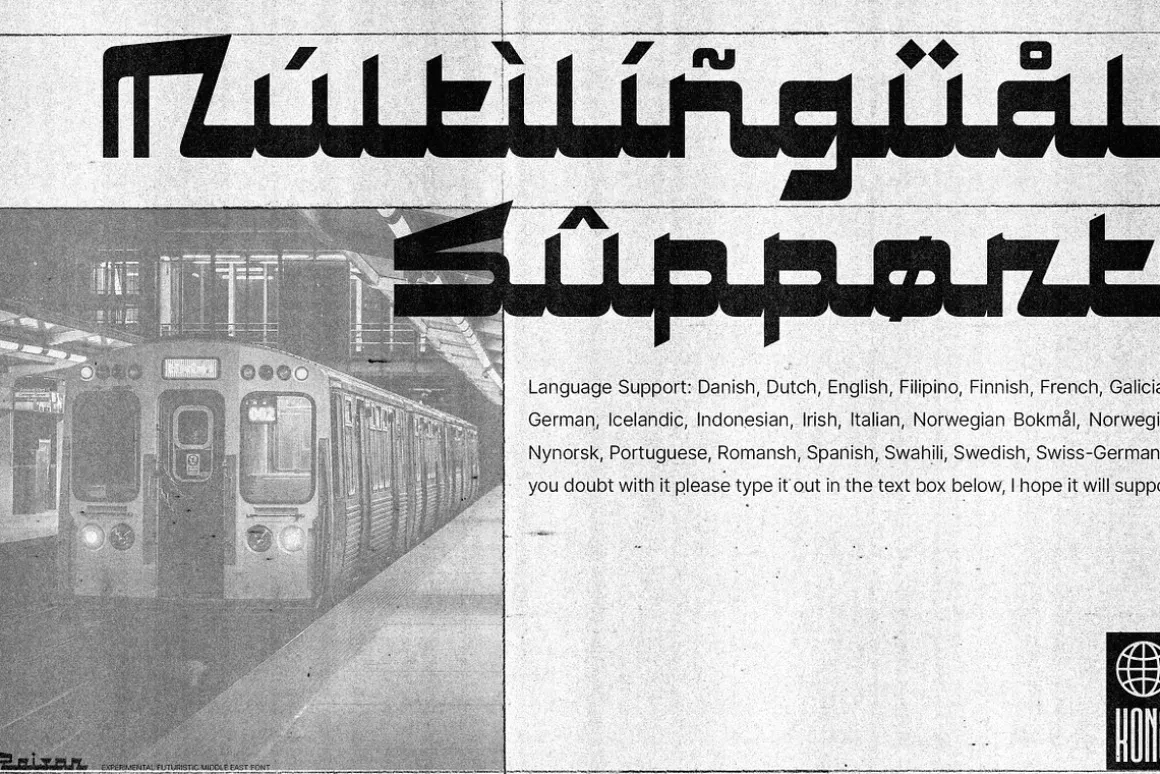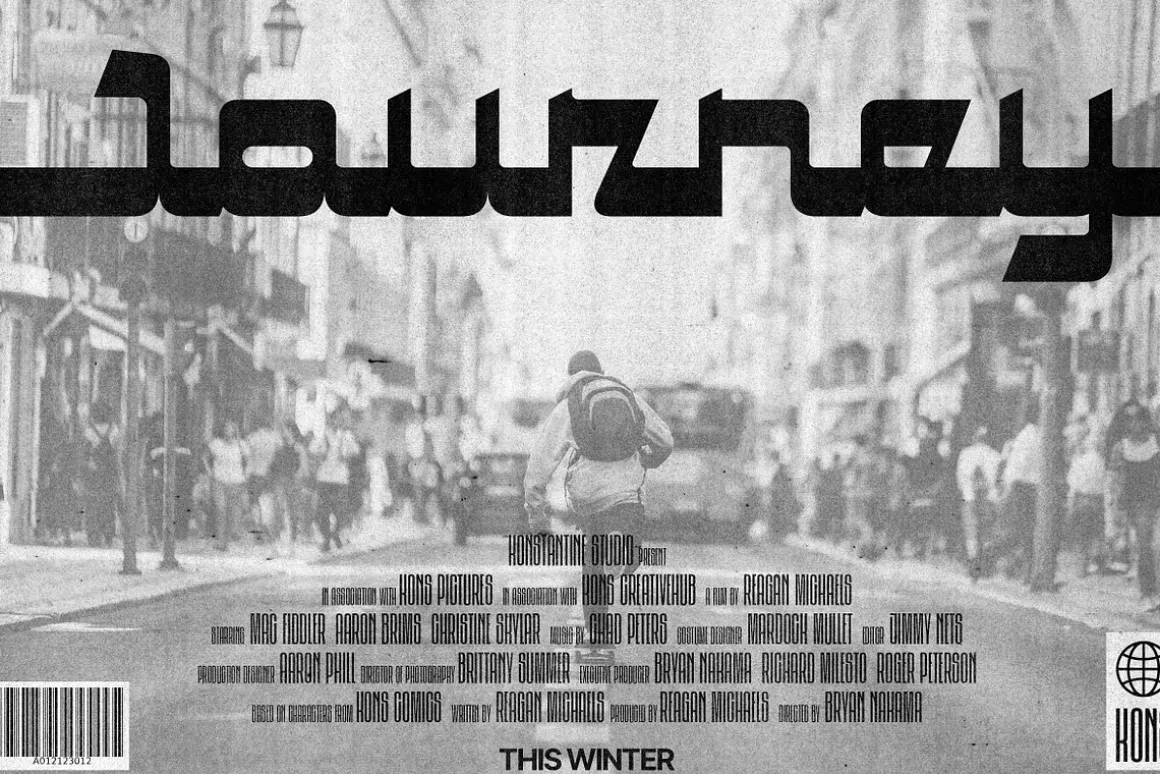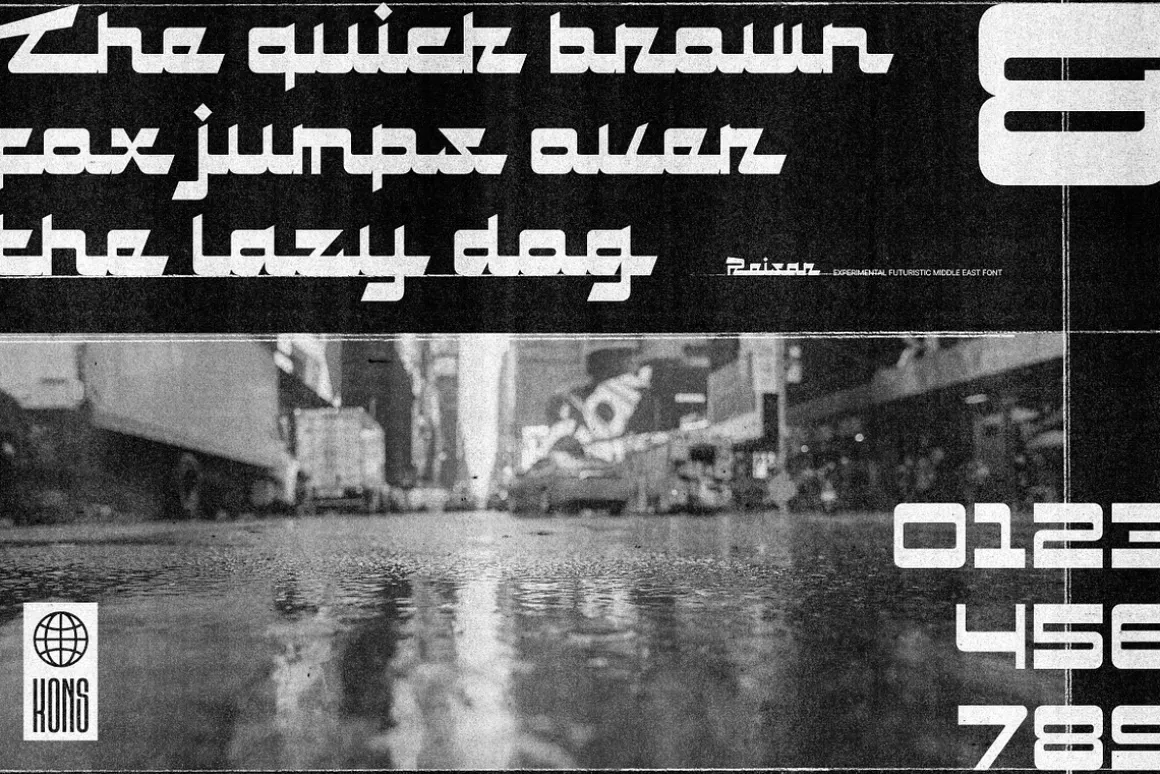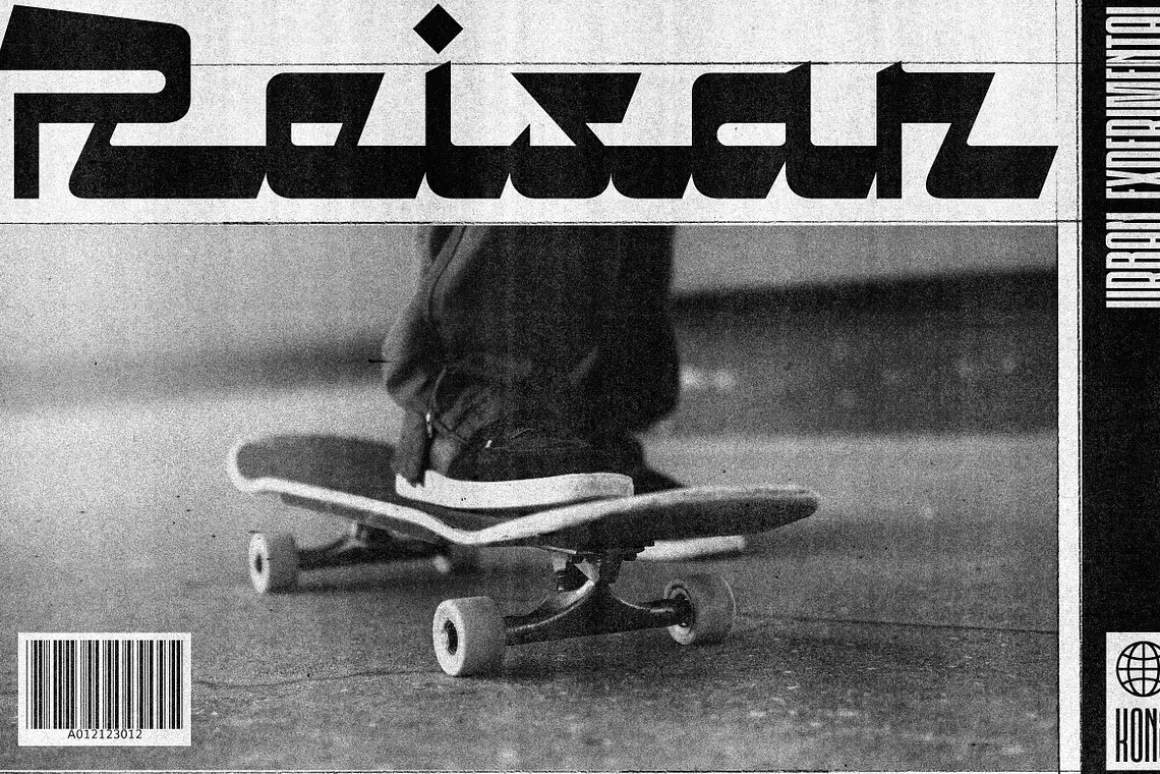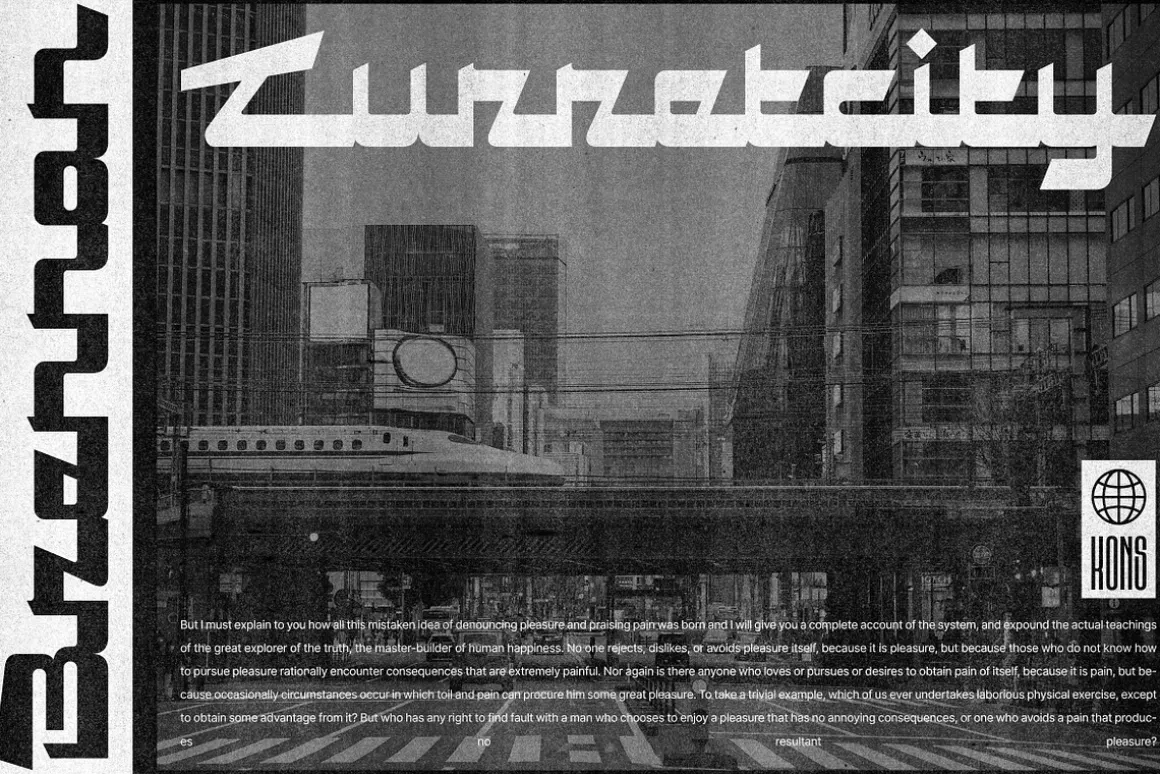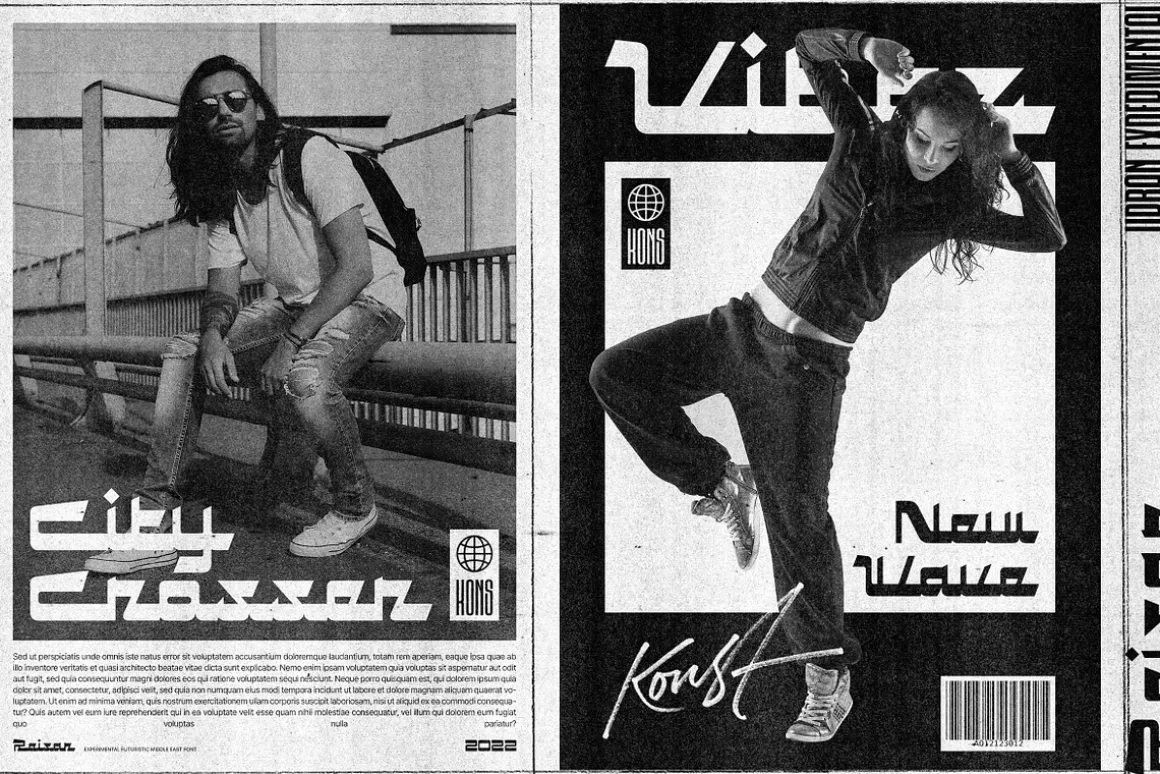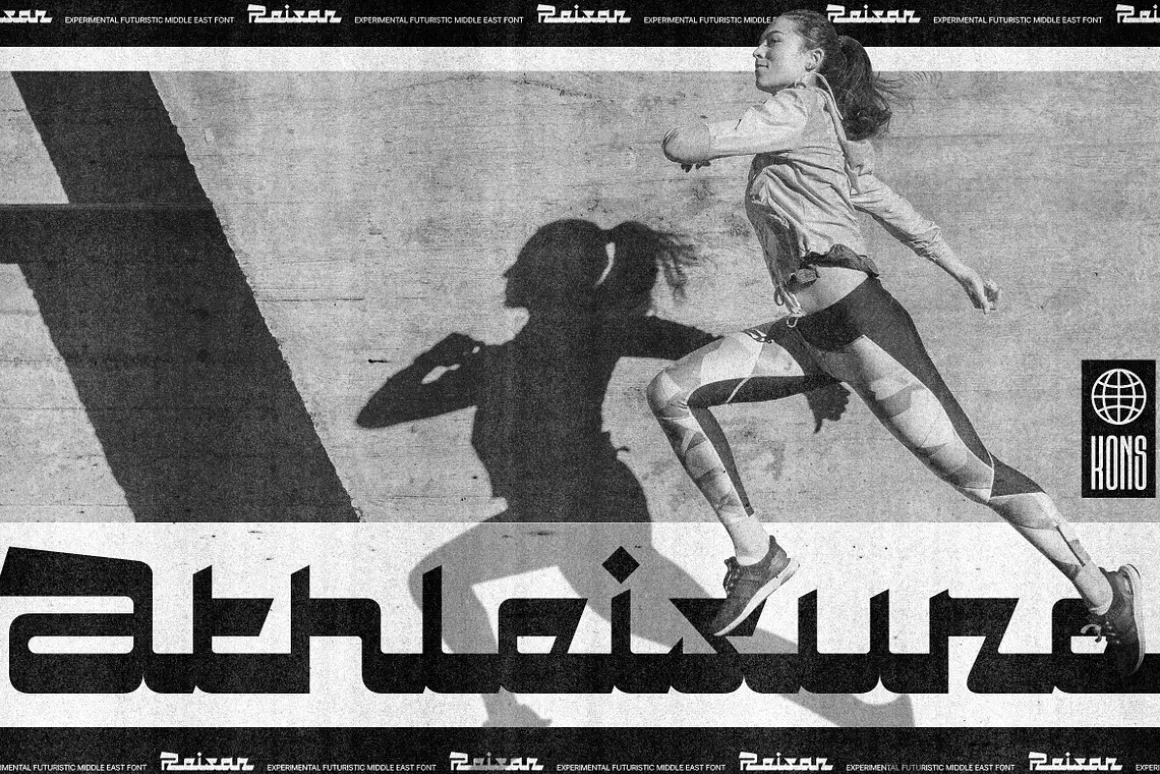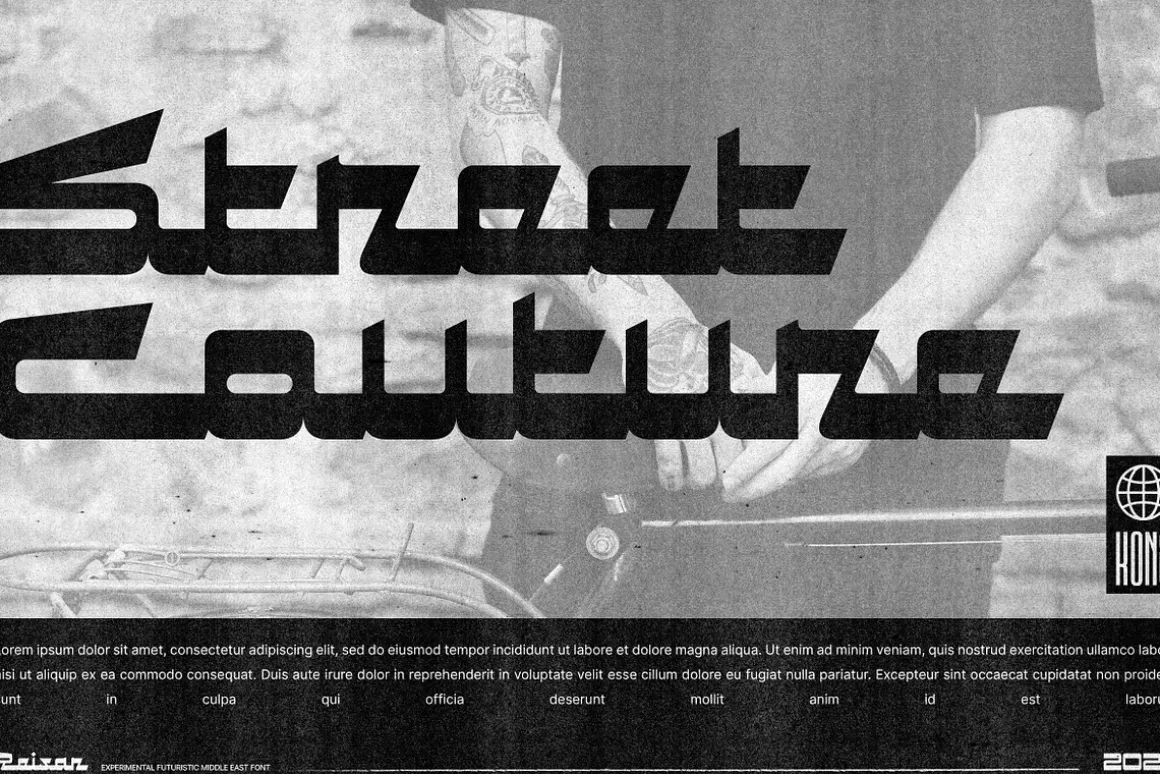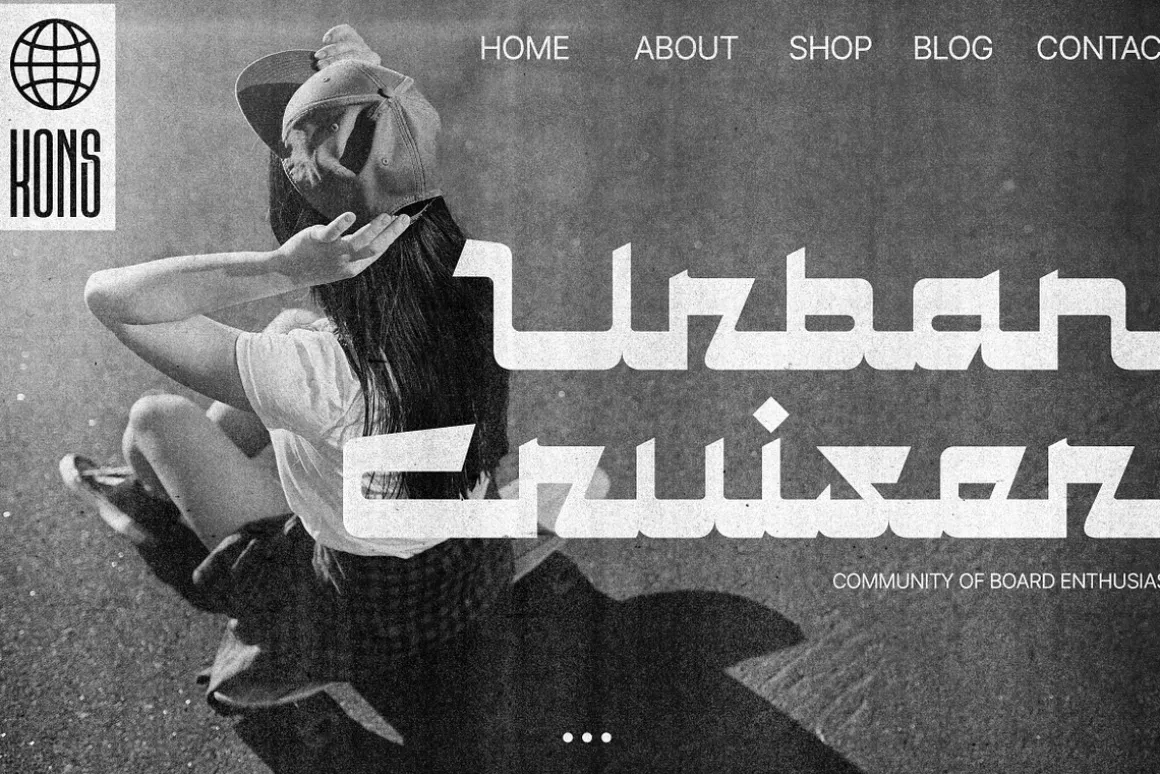
Reisar is inspired by the vintage sign of motels, automotive logos, and badges, mixed up with urban modern cross-culture of contemporary visuals and brutalism. It makes Reisar born with a fresh vibe combined with the past and future for your visual graphic design needs.
Perfectly fit for your logo, branding, clothing, apparel, merchandise, music project, album artwork, cover, book, music video, serial title, movie title, poster, animation, stickers, event, festival, magazine, and many more.
Language Support: Albanian, Basque, Catalan, Cornish, Croatian, Czech, Danish, Dutch, English, Esperanto, Estonian, Faroese, Finnish Scots, French, Gaelic, Galician, German, Greek Transliterated, Hawaiian, Hungarian, Icelandic, Indonesian, Irish, Italian, Latvian, Lithuanian, Maltese, Nynorsk Bokmal Norwegian, Polish, Portuguese, Romanian, Slovak, Slovenian, Spanish, Swedish, Turkish, Welsh. If you doubt it please type it out in the text box below, I hope it will support your language too 🙂